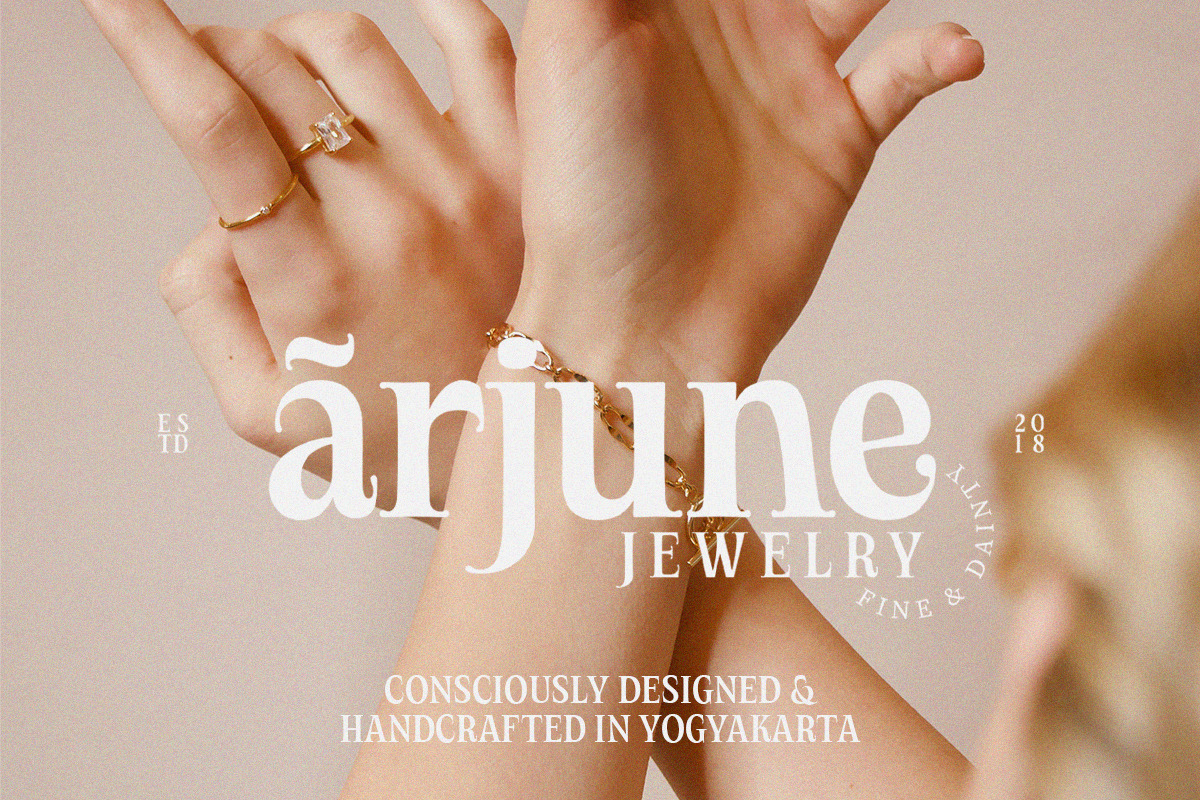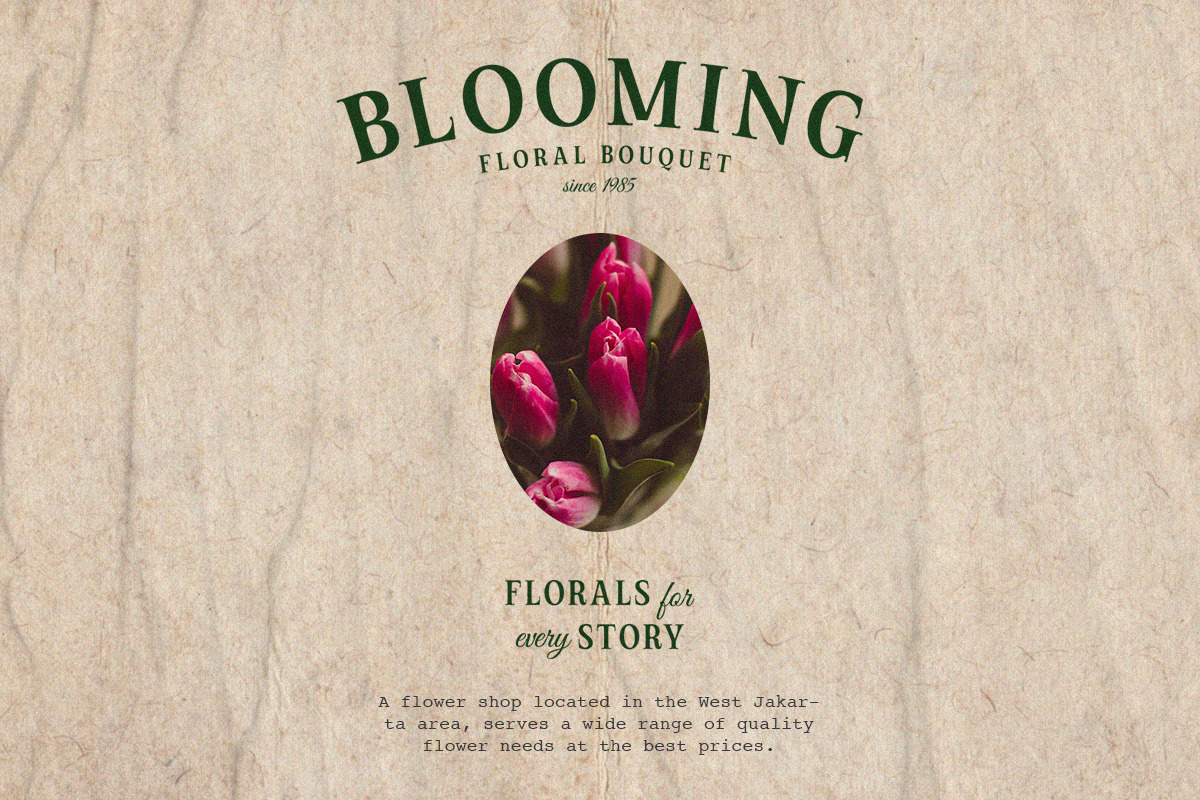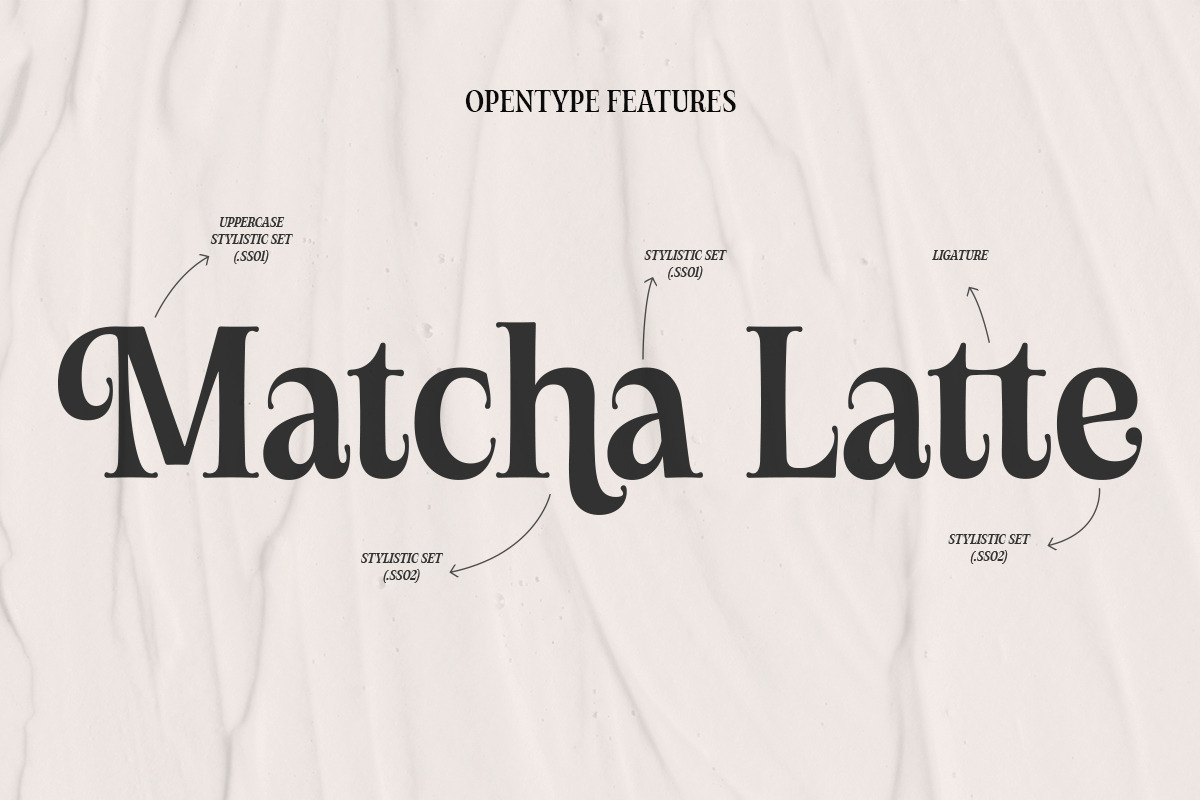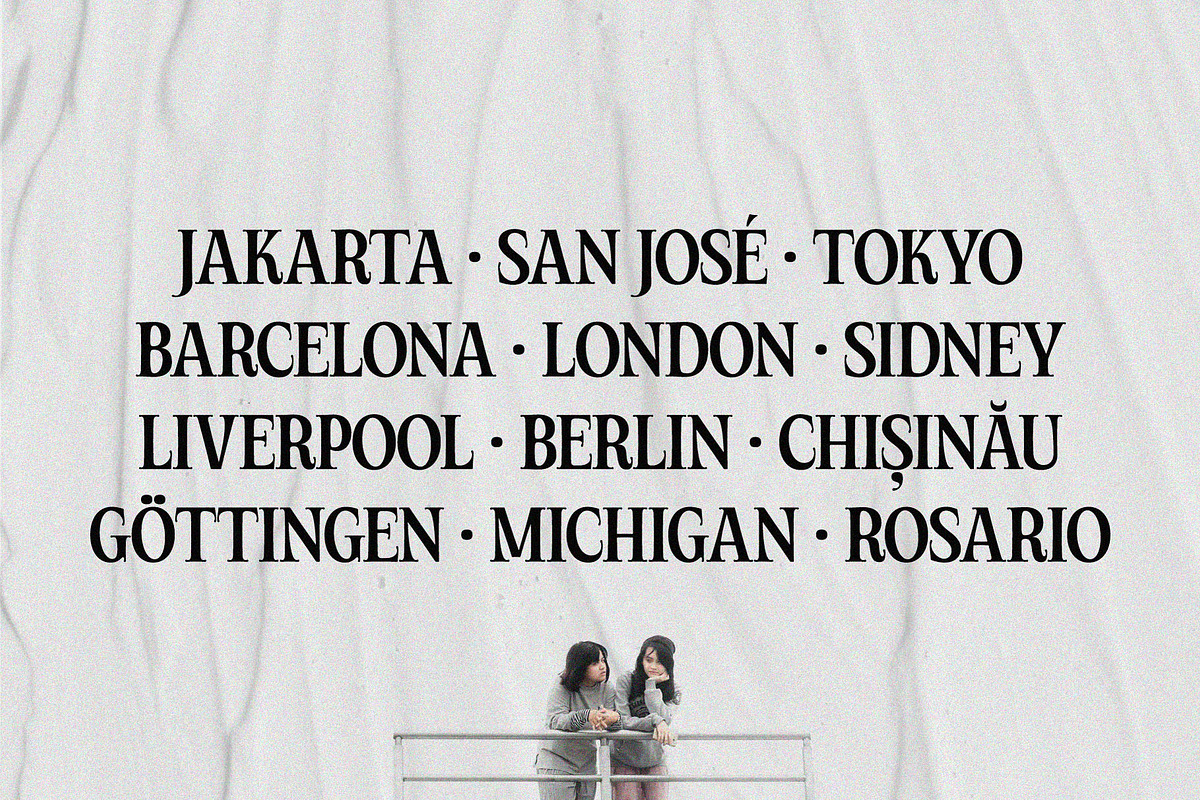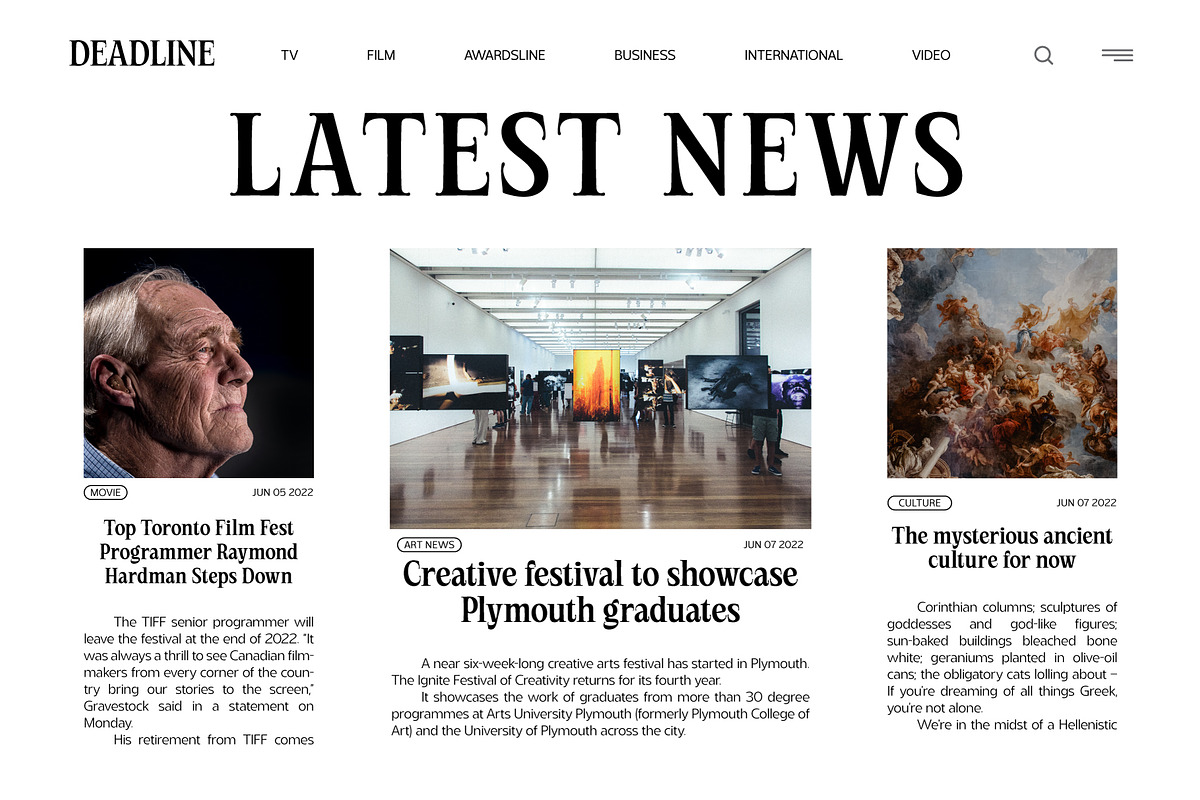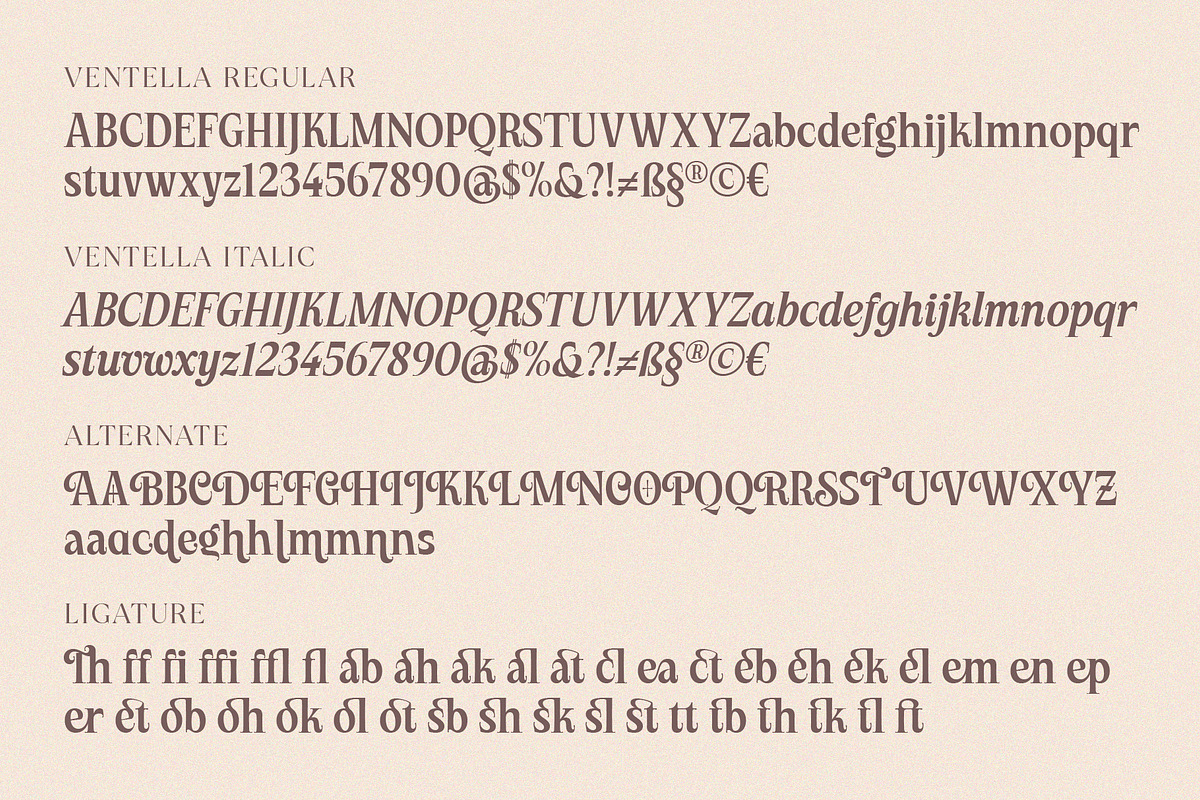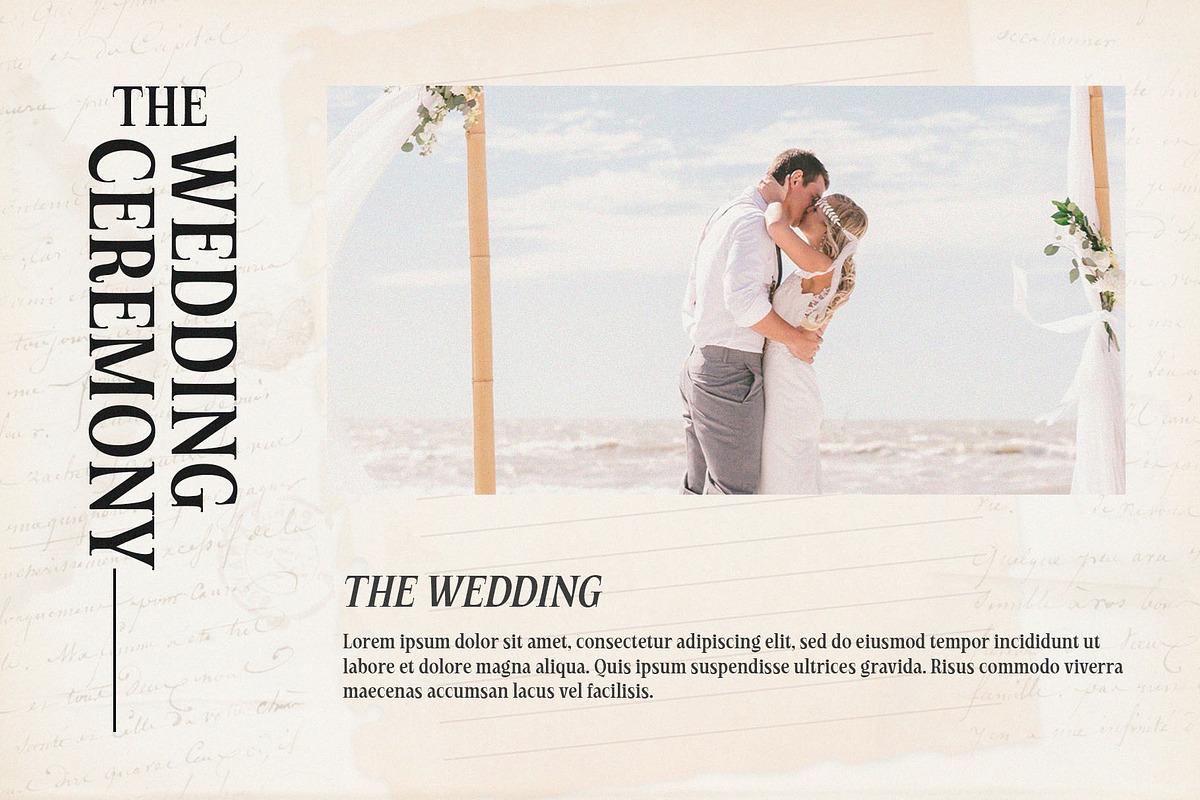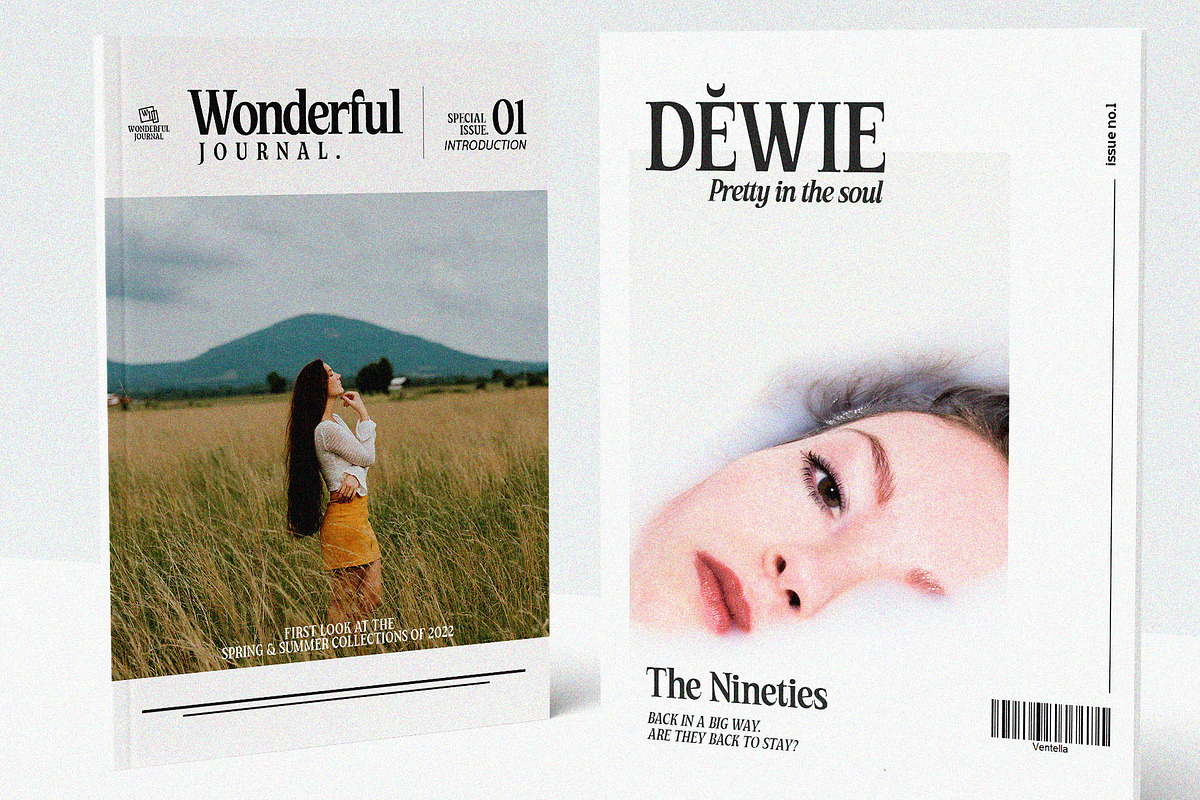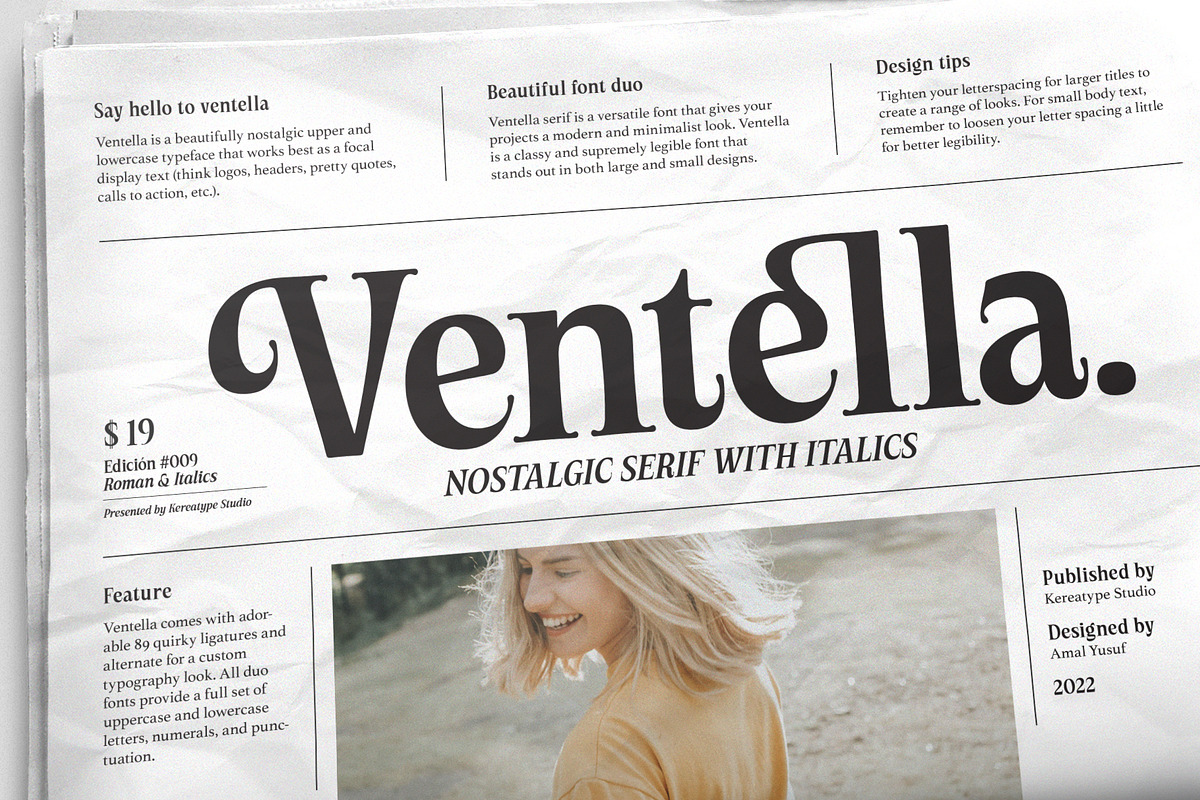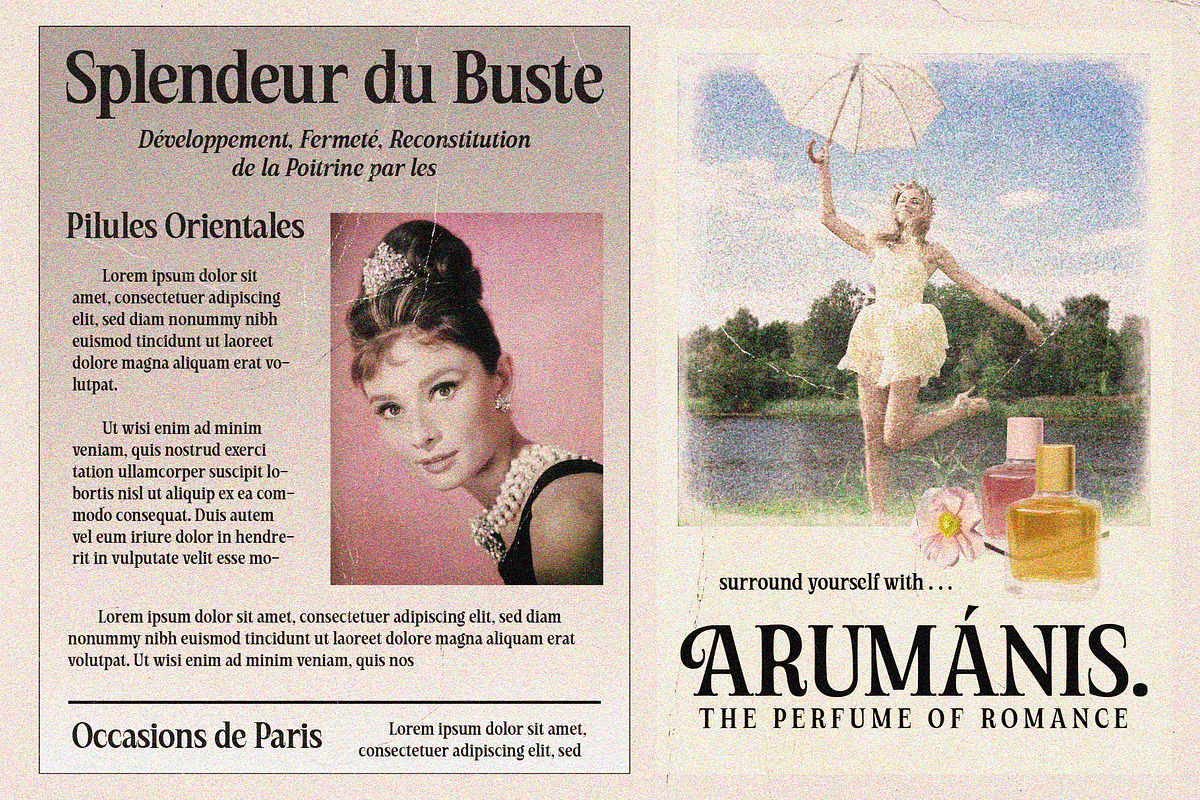
Ventella | Nostalgic Serif
Ventella is a beautifully nostalgic upper and lowercase typeface that works best as a focal display text (think logos, headers, pretty quotes, calls to action, etc.).
Featuring an elegant upright serif, light, and clean italic, this duo brings a splendid, clean visage to websites, logos, brand identities, quotes, and anything else you can think of!
Ventella serif is a versatile font that gives your projects a modern and minimalist look. Ventella is a classy and supremely legible font that stands out in both large and small designs be it a display or body text. Ventella comes with adorable 89 quirky ligatures and alternate for a custom typography look. All duo fonts provide a full set of uppercase and lowercase letters, numerals, and punctuation.
- Upper Case & Lowercase
- Stylistic Alternates & Ligatures
- Accents (Standart Multilingual Characters)